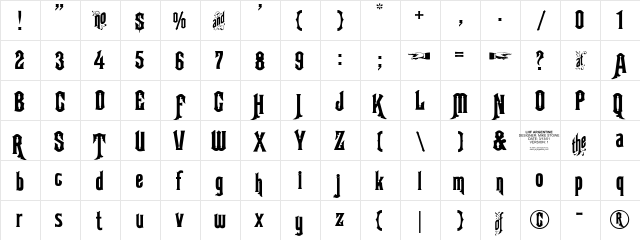
Halloween_Argentine Regular
Halloween_Argentine is a composed and adaptable typeface that performs quietly and consistently across a wide range of design contexts.